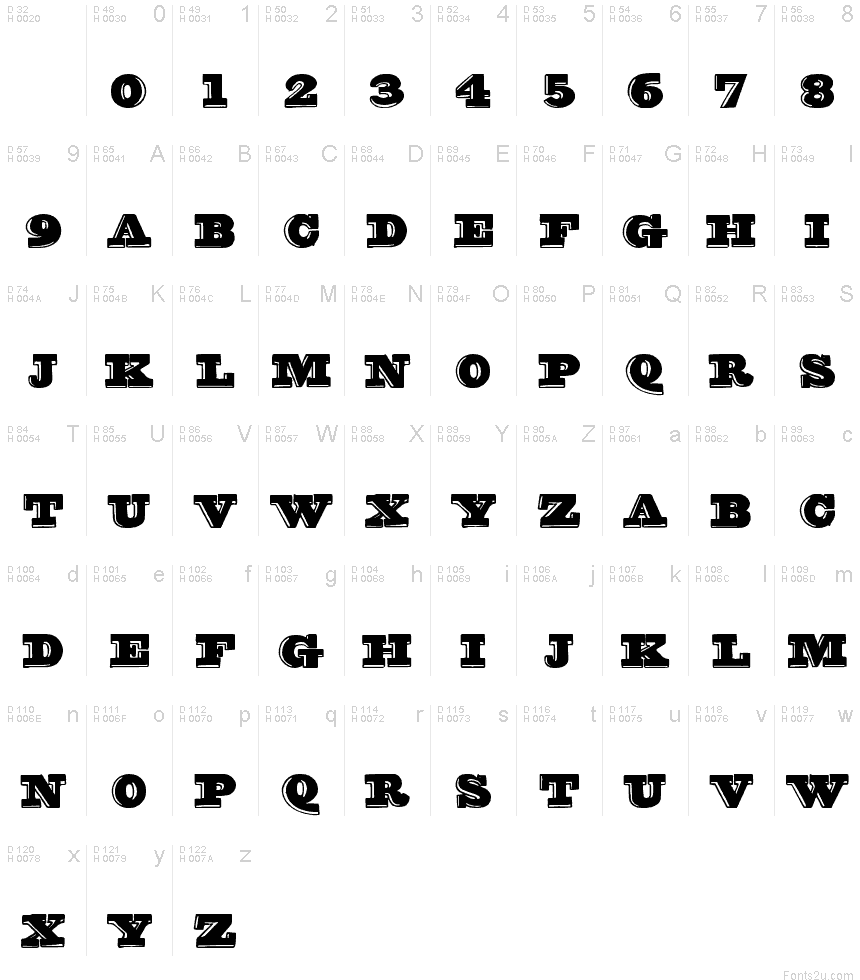
Groovy Font by Kaiserzharkhan is a free comic display font with the swagger of oversized Western poster lettering and irregular cut-in accents across the strokes. Broad slab serifs give the capitals a sturdy, theatrical silhouette.
The saloon-sign styling makes it a natural fit for comedy posters, music festival graphics, and novelty merchandise, where the broad forms resemble a hand-painted attraction. The scattered nicks suggest battered wood type, tying its cartoon humor to the rowdy spirit of old-time entertainment graphics. It can also turn snack packaging or children's book covers into part of the illustration through its chunky, carved-sign appearance.